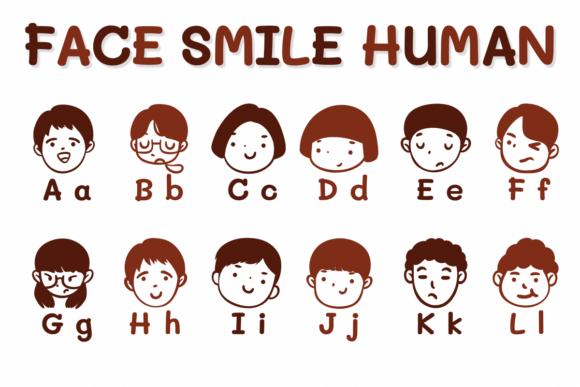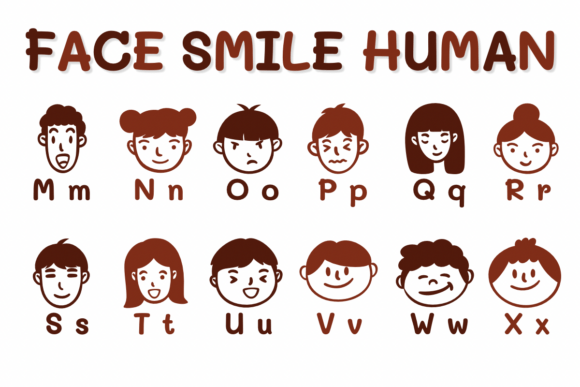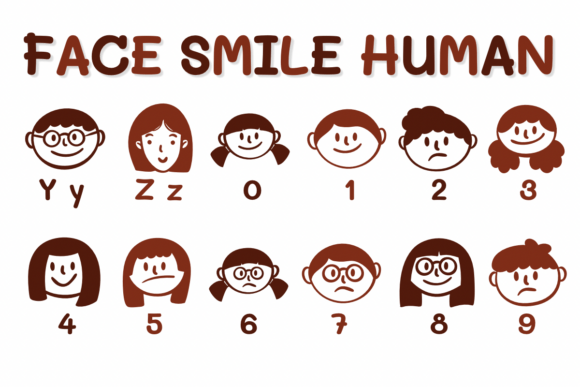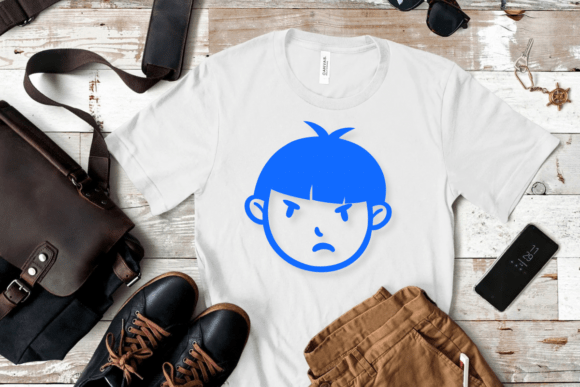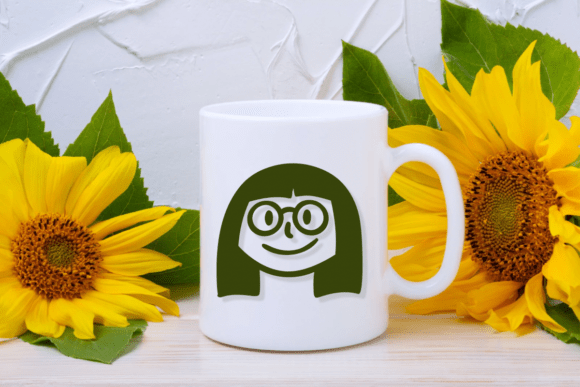
Introducing Face Smile Human Font: Add a Touch of Whimsy to Your Designs
Are you tired of using the same old boring fonts in your designs? Look no further than the Face Smile Human Font, a fun and quirky dingbats font that is sure to bring a smile to your audience’s faces. This delightful font features a collection of hand-drawn human faces, each one bursting with personality and charm.
What is Face Smile Human Font?
Face Smile Human Font is a unique and playful font that consists of a wide range of human faces, each one carefully crafted to convey a different emotion or expression. From happy and smiling faces to sad and surprised ones, this font has it all. The faces are designed to be simple, yet distinctive, making them perfect for use in a variety of projects, from children’s materials and comics to avatars and creative branding.
Key Features of Face Smile Human Font
- Hand-drawn human faces: Each character in the Face Smile Human Font is carefully hand-drawn, giving the font a personal and quirky feel.
- Wide range of emotions: The font features a diverse collection of faces, each one expressing a different emotion or feeling.
- Perfect for playful projects: Face Smile Human Font is ideal for use in children’s materials, comics, avatars, and other creative projects that require a fun and playful touch.
Uses of Face Smile Human Font
Face Smile Human Font is a versatile font that can be used in a wide range of projects, including:
- Children’s materials: The font is perfect for use in children’s books, educational materials, and other kid-friendly projects.
- Comics and cartoons: The font’s playful and expressive faces make it a great choice for use in comics, cartoons, and other animated projects.
- Avatars and emoticons: The font’s wide range of faces makes it ideal for use in creating avatars and emoticons for social media and other online platforms.
- Creative branding: Face Smile Human Font can be used to add a touch of whimsy and personality to brand identities, logos, and marketing materials.
Benefits of Using Face Smile Human Font
Using Face Smile Human Font in your designs can have a number of benefits, including:
- Adding a touch of personality: The font’s unique and playful faces can help to add a touch of personality and charm to your designs.
- Conveying emotion and expression: The font’s wide range of faces makes it easy to convey different emotions and expressions, adding depth and nuance to your designs.
- Standing out from the crowd: The font’s quirky and distinctive style can help your designs to stand out from the crowd and grab attention.
Tips for Using Face Smile Human Font
Here are a few tips for getting the most out of Face Smile Human Font:
- Experiment with different faces: The font features a wide range of faces, so don’t be afraid to experiment and find the ones that work best for your project.
- Use in combination with other fonts: Face Smile Human Font can be used in combination with other fonts to create a unique and visually appealing design.
- Pay attention to context: Consider the context in which your design will be used, and choose faces that are appropriate for your audience and purpose.
Face Smile Human Font is a fun and quirky dingbats font that is sure to bring a touch of whimsy and personality to your designs. With its wide range of hand-drawn human faces, this font is perfect for use in playful projects, children’s materials, comics, avatars, and creative branding. So why not give it a try and see how it can add a smile to your audience’s faces?